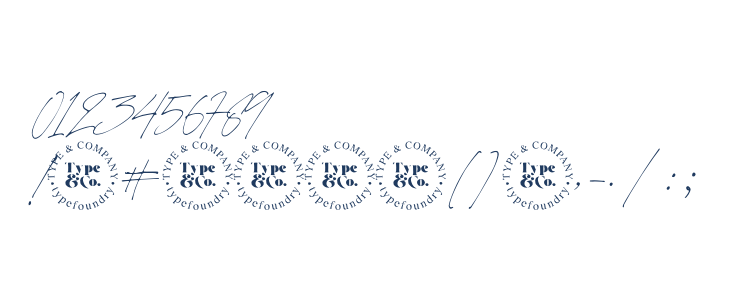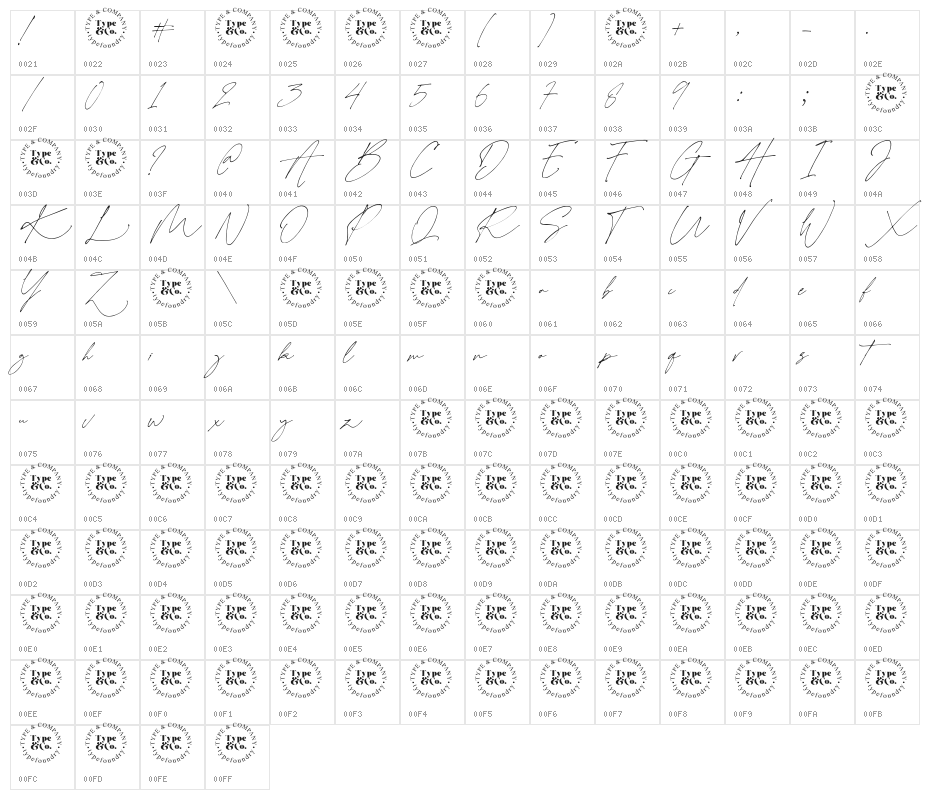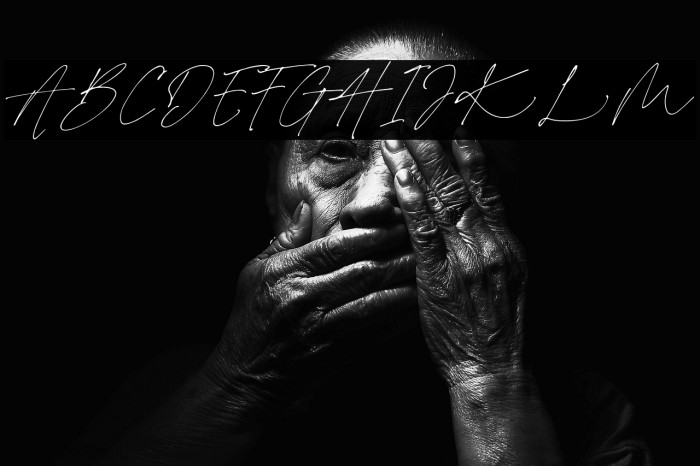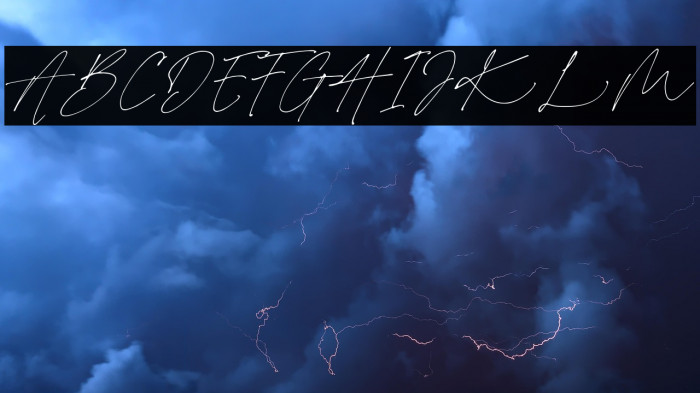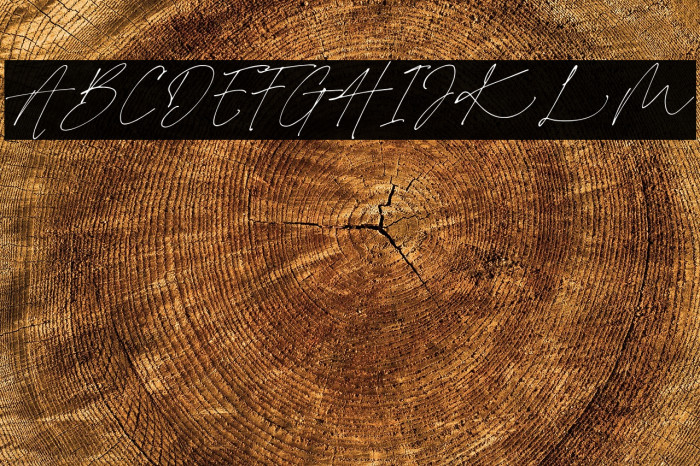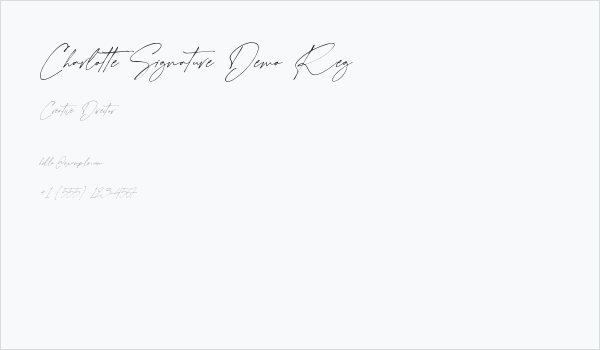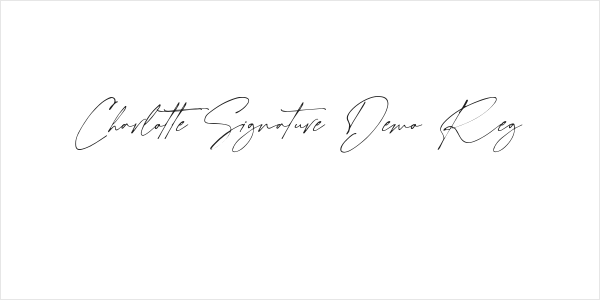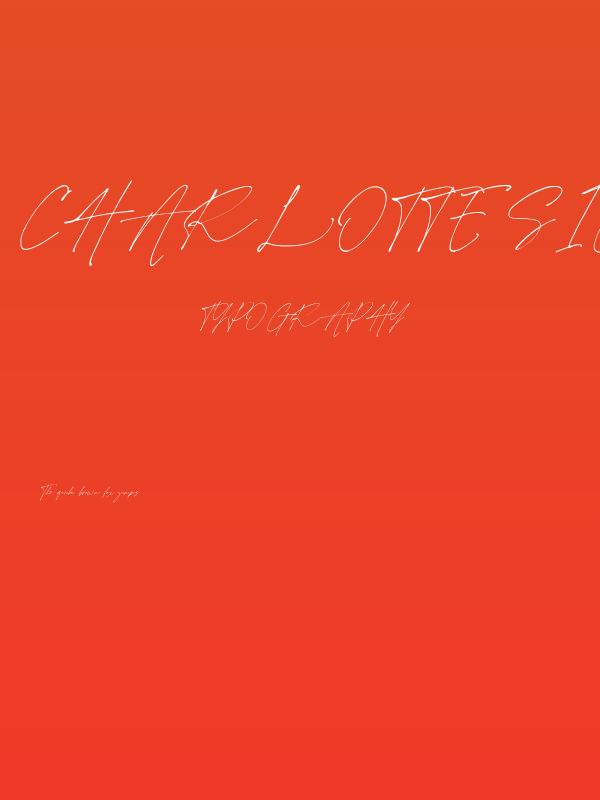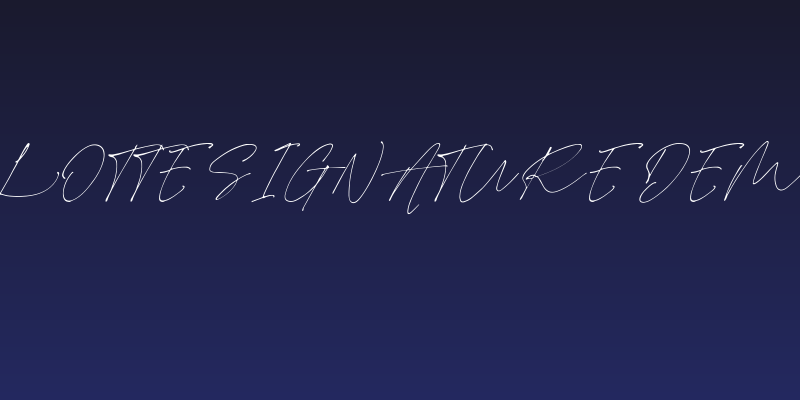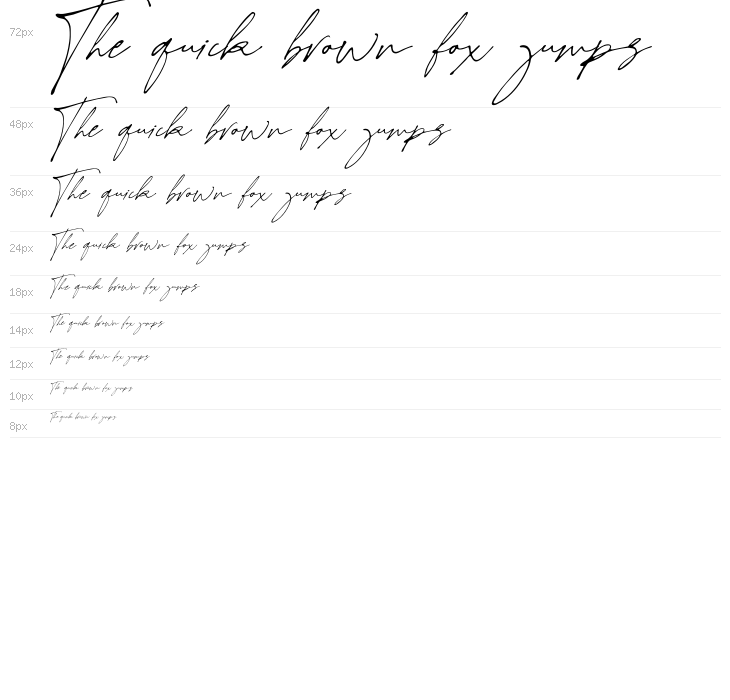
Charlotte Signature Demo Reg Font
Charlotte Signature Demo Reg Description
This font exudes a sophisticated and elegant handwritten style, characterized by its fluid and cursive strokes. The letters are connected in a natural flow, mimicking the appearance of a personal signature. The uppercase letters are tall and slender, while the lowercase letters maintain a consistent rhythm with graceful loops and curves. The numerals are stylishly integrated, maintaining the overall aesthetic. Special characters are seamlessly incorporated, enhancing the font's versatility. This font is perfect for projects that require a personal touch, such as invitations, branding, or any design that benefits from a handwritten feel.
| Use Case | Logos, Invitations, Personal branding |
| Proposed Projects | Ideal for wedding invitations, personal branding, greeting cards, and elegant logos. |